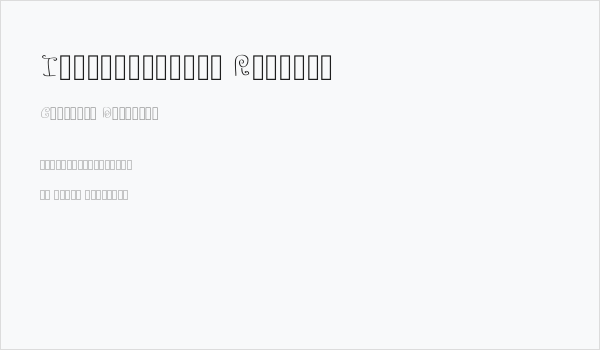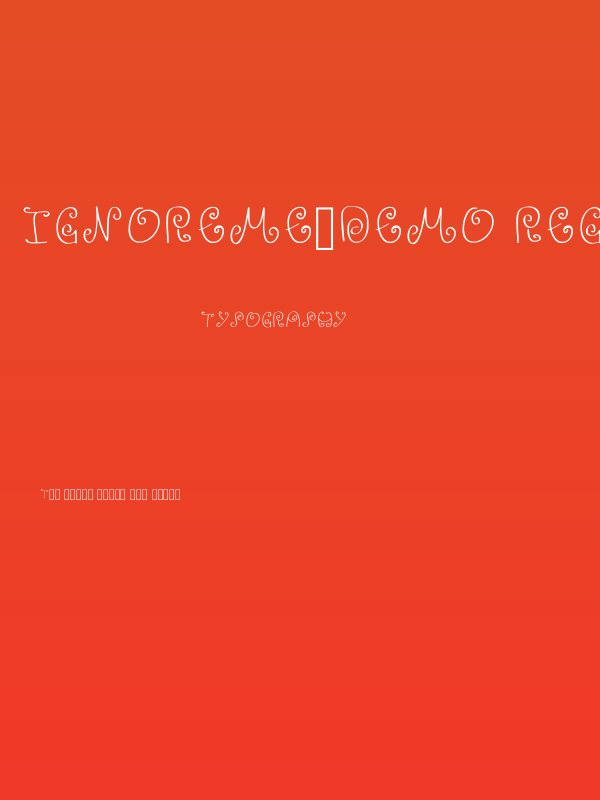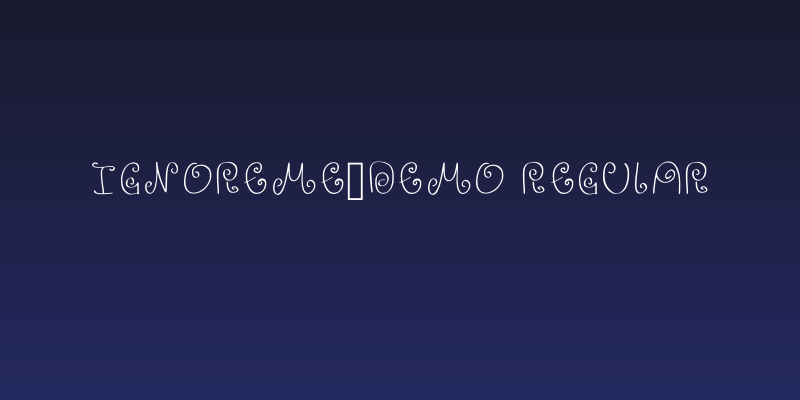
Ignoreme_demo Regular Font
Ignoreme_demo Regular Description
This font features a whimsical and playful design with each letter incorporating unique curls and swirls, giving it a lively and decorative appearance. The uppercase letters are particularly ornate, with exaggerated loops and curves that add a sense of movement and flair. The overall design is consistent across the alphabet, maintaining a cohesive style that is both eye-catching and distinctive. This font would be ideal for projects that require a touch of creativity and fun, such as children's book covers, playful branding, or artistic invitations.
| Use Case | Logos, Headlines |
| Proposed Projects | Children's book covers, playful branding, artistic invitations. |